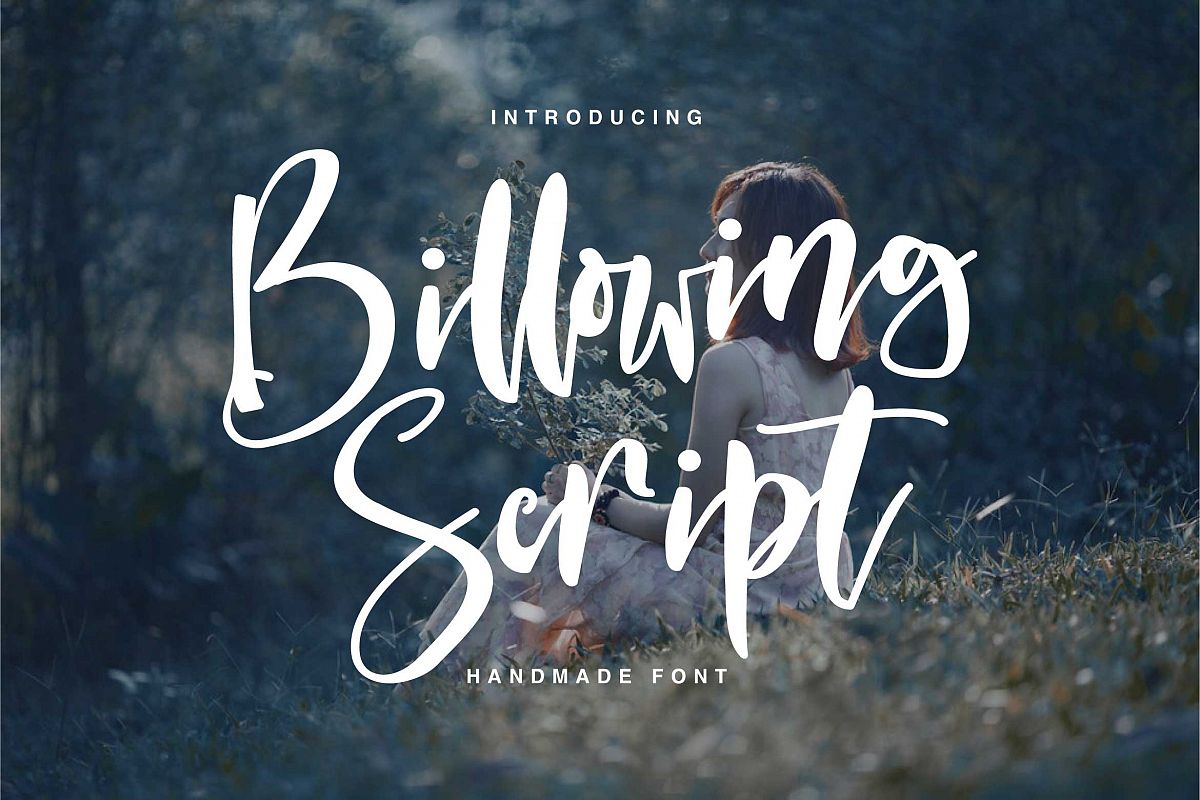
Billowing Script
Introducing Billowing Script
Billowing Script is a new Handmade Calligraphy Typeface Fonts collection from Ianmikraz studio, combines from copperplate to contemporary typeface, classic, beauty and Natural touch.
Billowing Script is suitable for Apparel Brand, any greeting cards, Painting design style, or any design that needs natural and personal touch. Mix and match the alternate characters to add an attractive message to your design.
Features of Billowing Script is;
• Standart ligatures